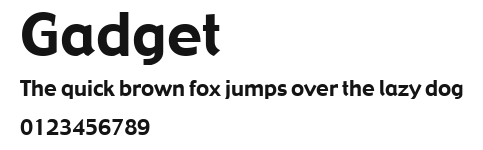
• Font Name: Gadget
• Full Font Name: Gadget
About Gadget.ttf
Gadget.ttf is a modern, elegant sans-serif font designed for ultimate readability and visual harmony. Perfect for branding, headlines, web design, and print materials.